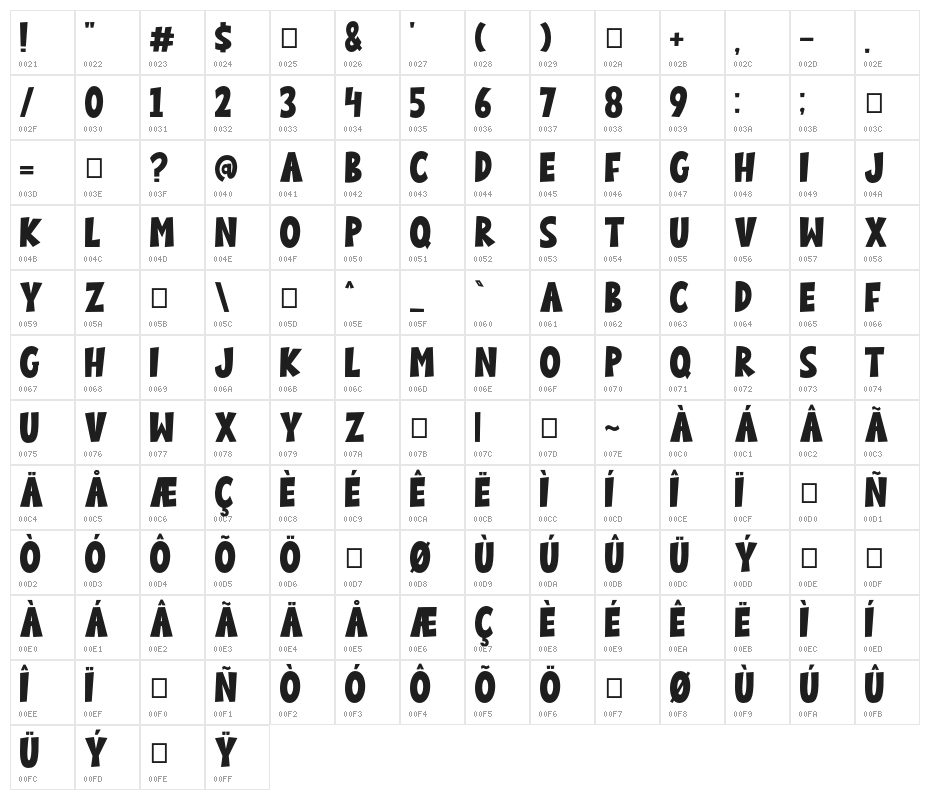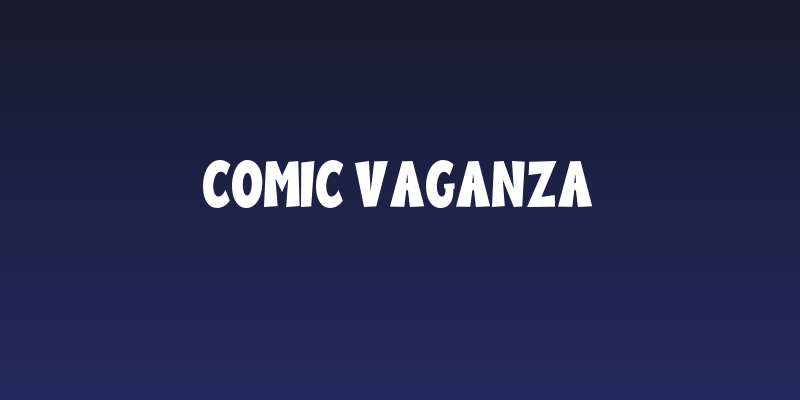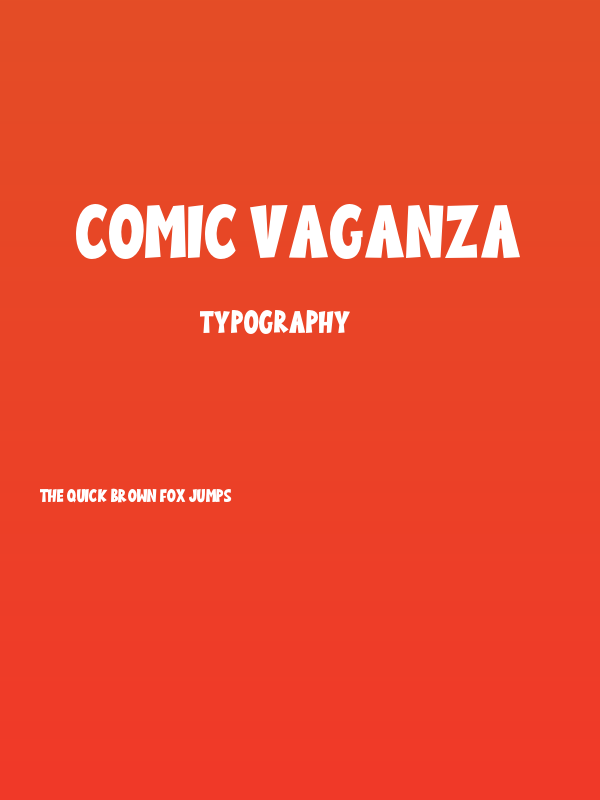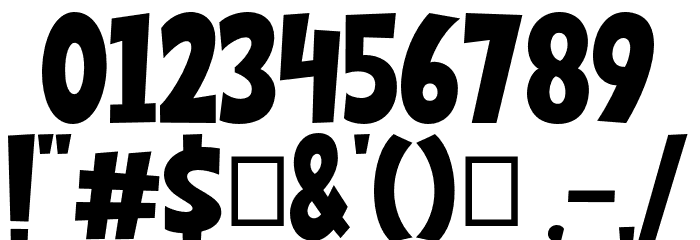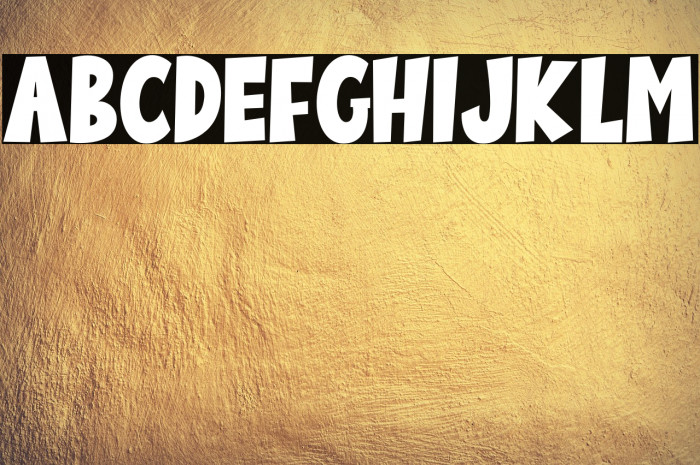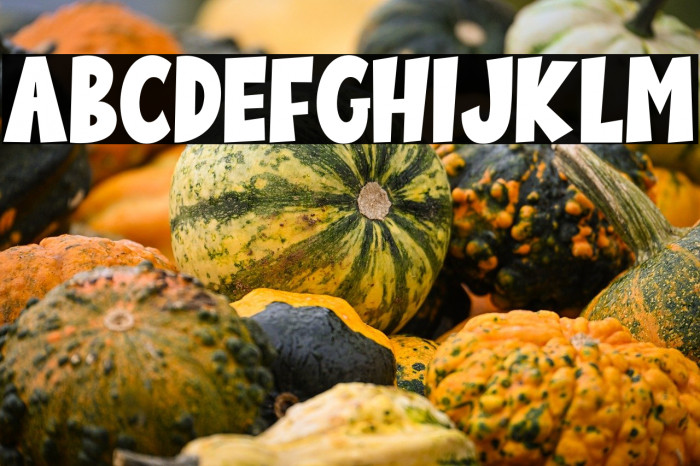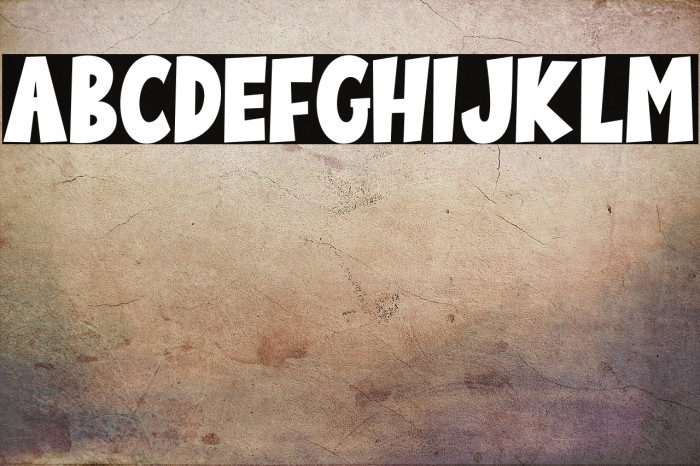
Comic Vaganza Font
Comic Vaganza Description
This font features a playful and bold style, reminiscent of comic book lettering. The characters are thick and slightly irregular, giving them a hand-drawn appearance that adds to their charm. The uppercase letters are prominent and eye-catching, while the lowercase letters maintain a consistent style that complements the overall design. The numbers are equally bold, ensuring they stand out in any context. Special characters are included, maintaining the same whimsical style. This font is perfect for projects that require a fun and informal touch.
| Proposed Projects | Ideal for comic books, children's books, playful branding, and posters. |